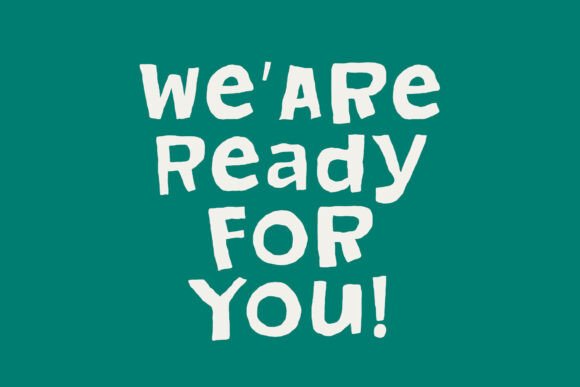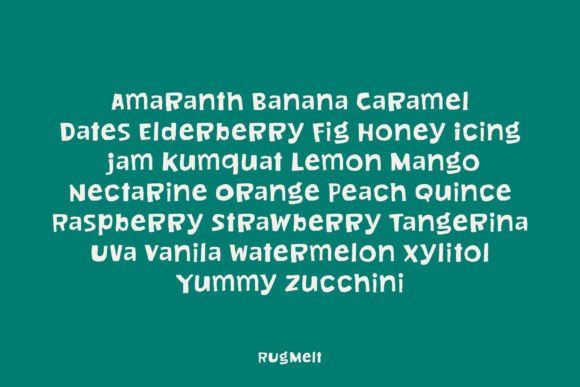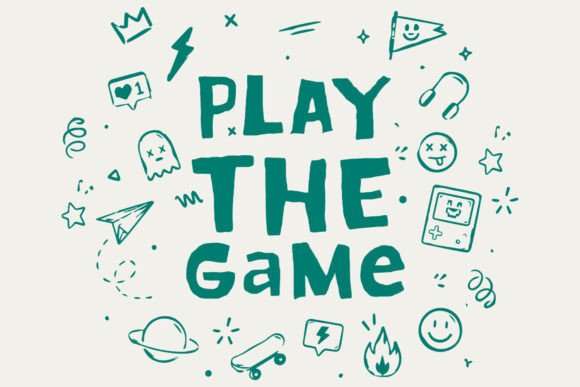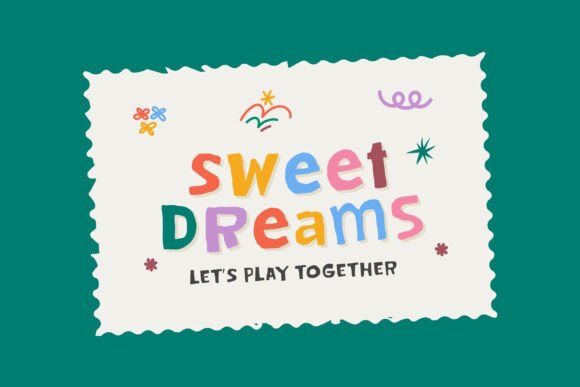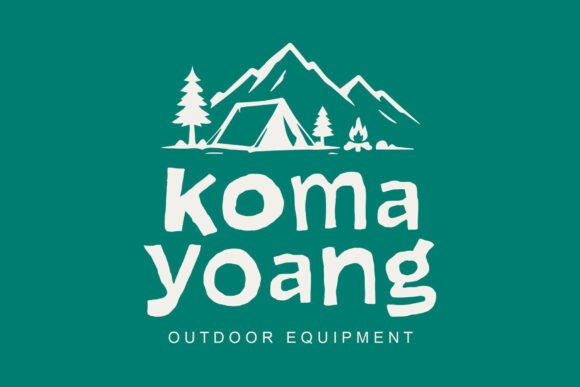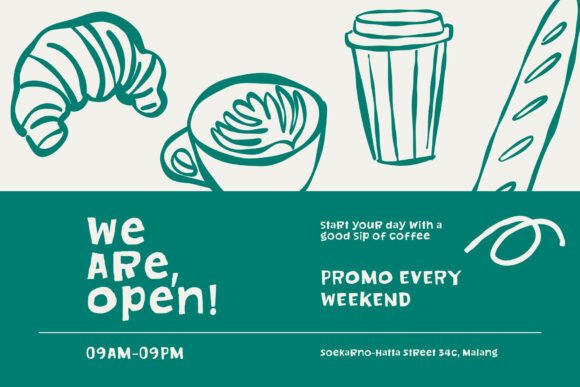
Introduction to Rugmelt Font
Do you remember that moment when a font suddenly sparks an idea, and you can’t wait to bring it to life? For designers, it’s a thrill to stumble upon a high-quality design resource that adds that extra oomph to a project. The Rugmelt Font is one such treasure, offering a bold and rugged display font that’s perfect for unleashing raw energy and playful character in your creative projects.
As you explore the Rugmelt Font, you’ll discover its unique blend of hand-painted lettering and imperfect organic shapes, creating a strong visual impact with chunky forms, uneven edges, and an artistic personality. With its versatility, this font is ideal for posters, streetwear branding, packaging, album covers, logos, social media graphics, children’s designs, and bold editorial layouts, making it a valuable addition to any designer’s toolkit.
Key Features of Rugmelt Font
- High-quality, professional design resource ideal for creative projects, offering a unique and stylish look.
- Rugmelt Font is a versatile design element, suitable for various creative projects, including digital art, graphic design, and typography.
- This unique font design features a distinctive style that can add a touch of elegance and sophistication to any project.
Honest Review: Rugmelt Font
I recently had the chance to work with the Rugmelt Font, and I must say it’s been a great addition to my design resource library. The Rugmelt Font is a high-quality, free download that offers a unique and creative take on typography.
- Unique design: The Rugmelt Font has a distinctive style that sets it apart from other fonts in its class.
- Transparent background: This makes it easy to customize and use with a variety of backgrounds and images.
- Wide range of uses: I’ve used the Rugmelt Font for a variety of creative projects, from logos to social media graphics.
- Limited character set: The Rugmelt Font is missing some characters, which can be a problem for designers who need a full range of typography options.
- Not suitable for large-scale printing: Due to its unique design, the Rugmelt Font may not be the best choice for large-scale printing or professional publishing.
Overall, I’m impressed with the Rugmelt Font. It’s a great design resource that’s perfect for smaller creative projects or personal use. With a few limitations, it’s a solid choice for designers looking for a unique and free font option.
Getting the Most Out of Rugmelt Font
To get the most out of the Rugmelt Font, experiment with different font sizes, colors, and layering techniques. This font is highly versatile and can be used in a variety of creative ways.
Common Use Cases for Rugmelt Font
The Rugmelt Font is perfect for a variety of design projects, including logos, typography-based designs, presentations, and documents. It’s also a great resource for designers looking for a high quality, free download font.